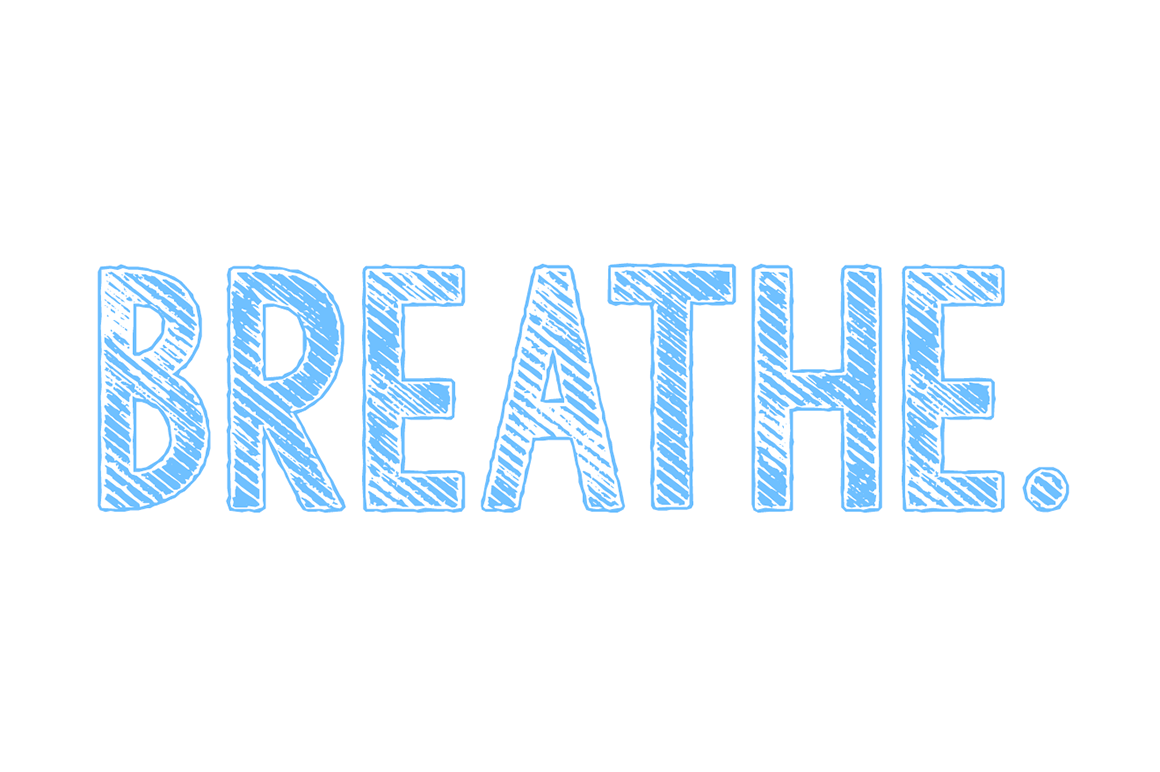
KG Tangled Up in You Font
A highly-textured all-caps font. Also includes a solid version for layering.
Uppercase and lowercase slots are each filled with uppercase letters, but they have different distressing patterns so they will create an organic look when mixed.